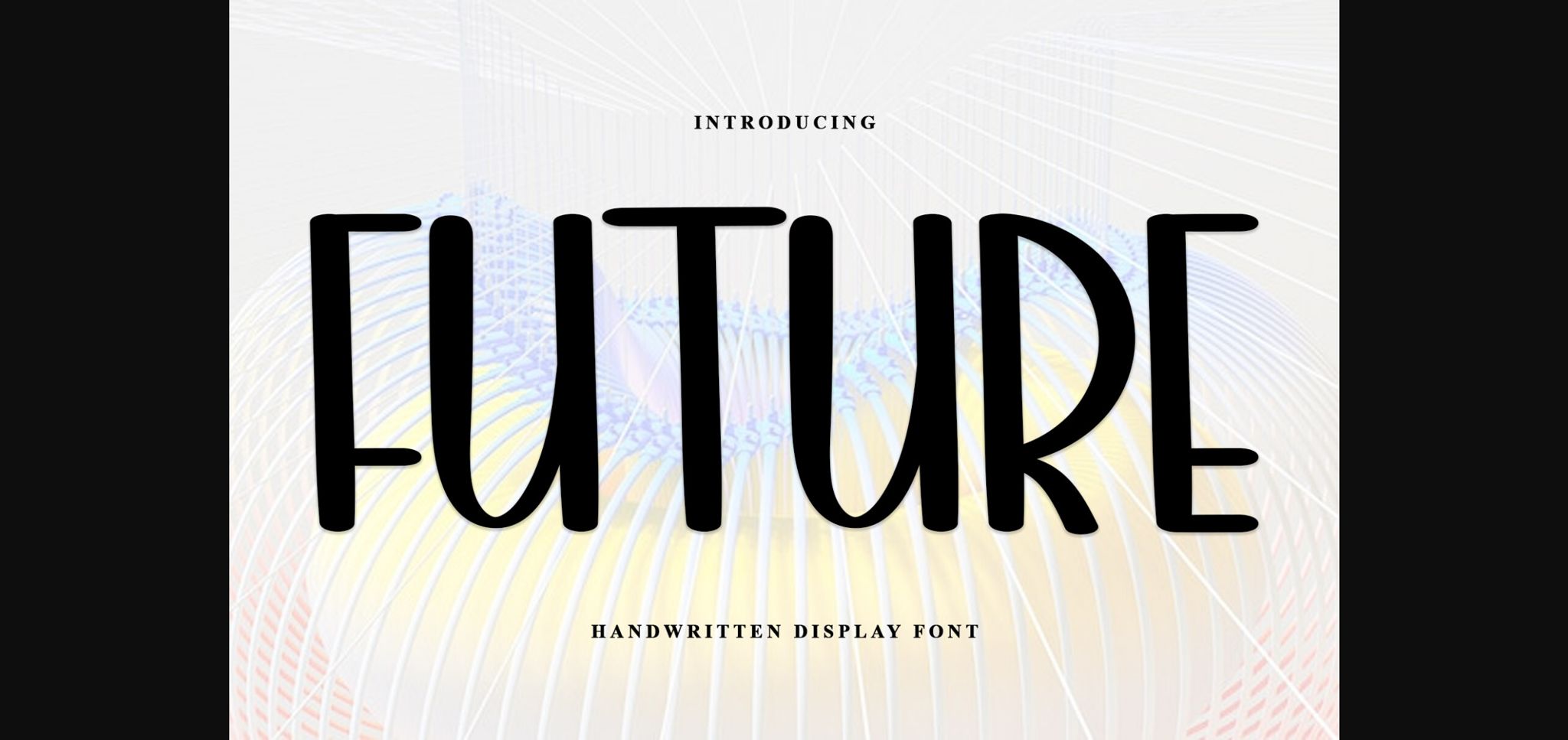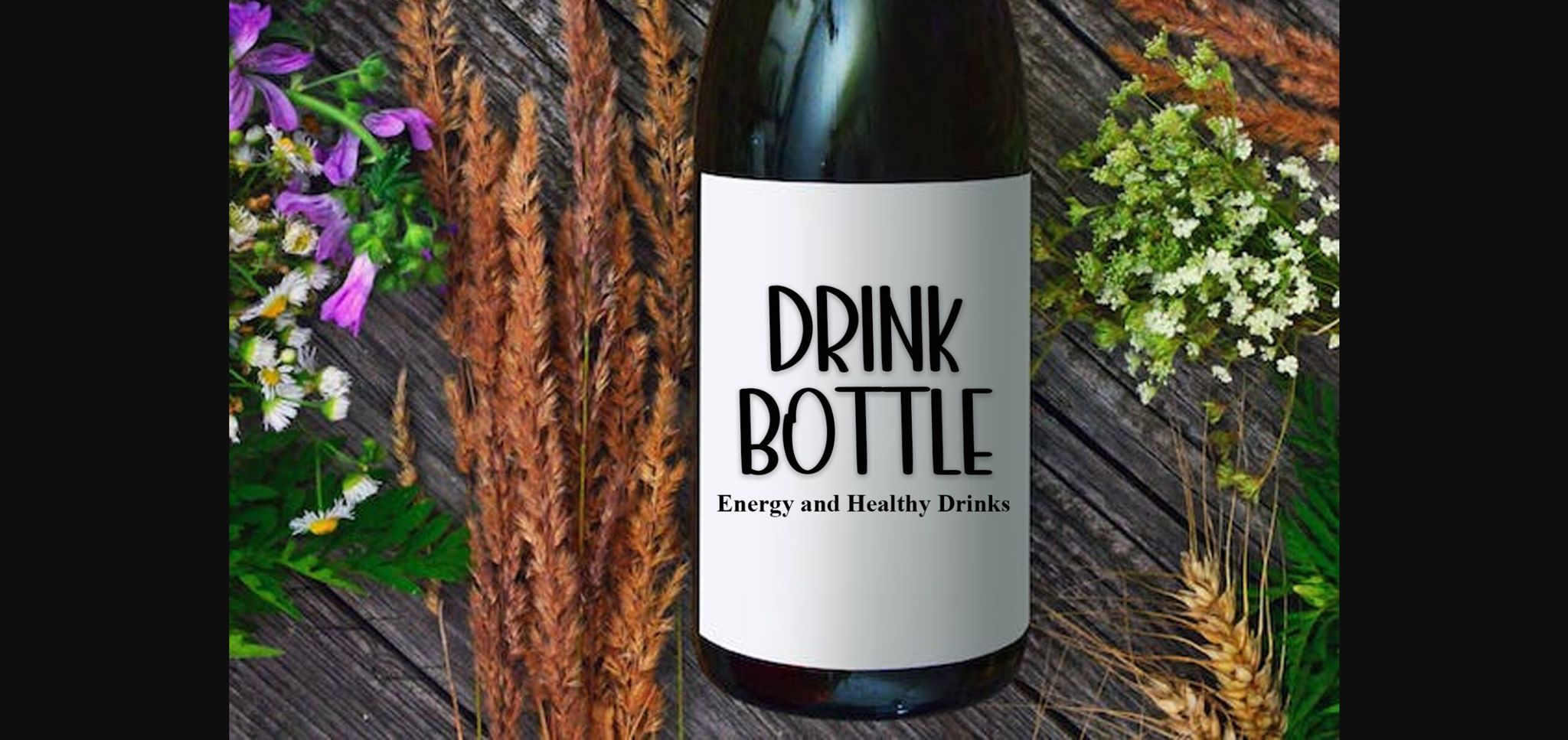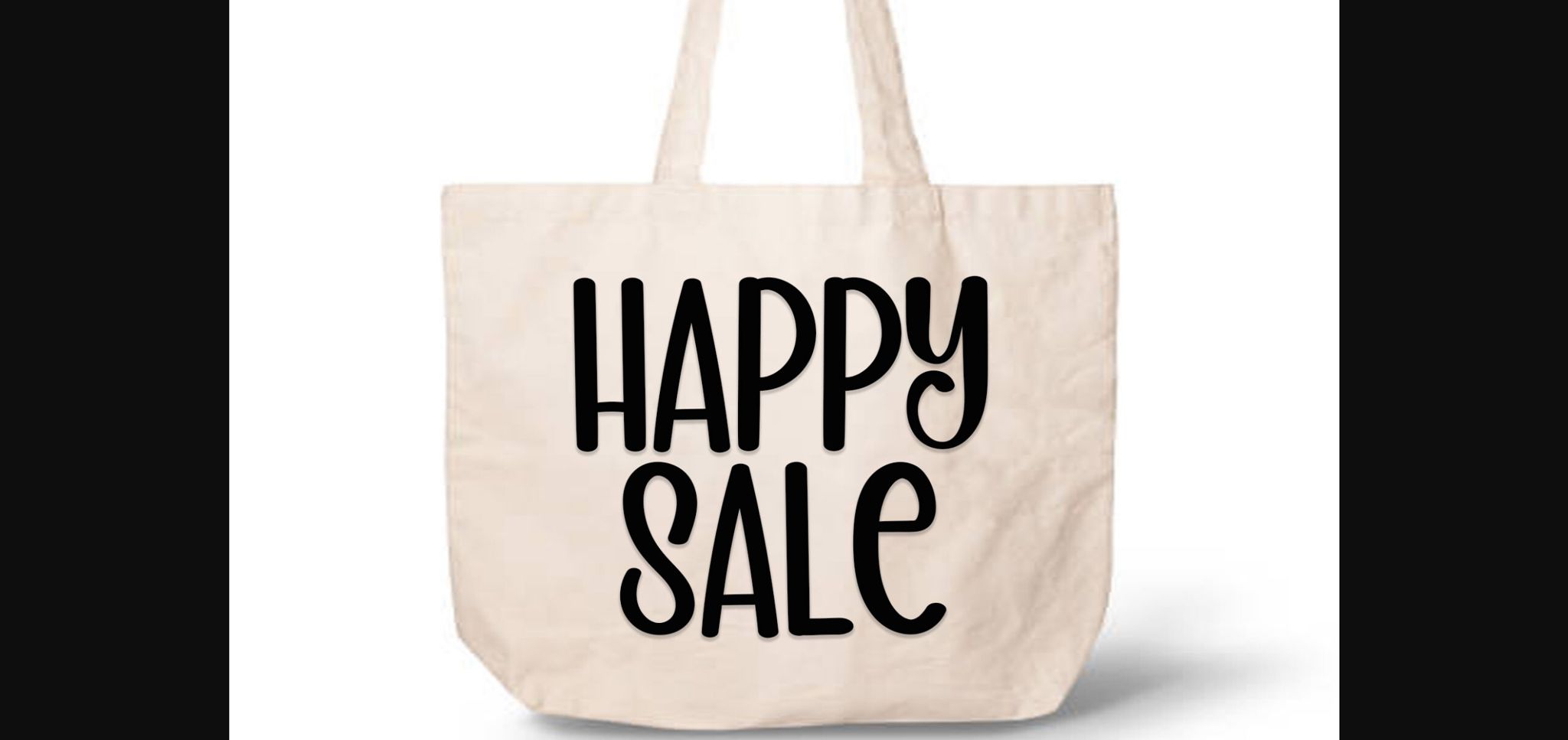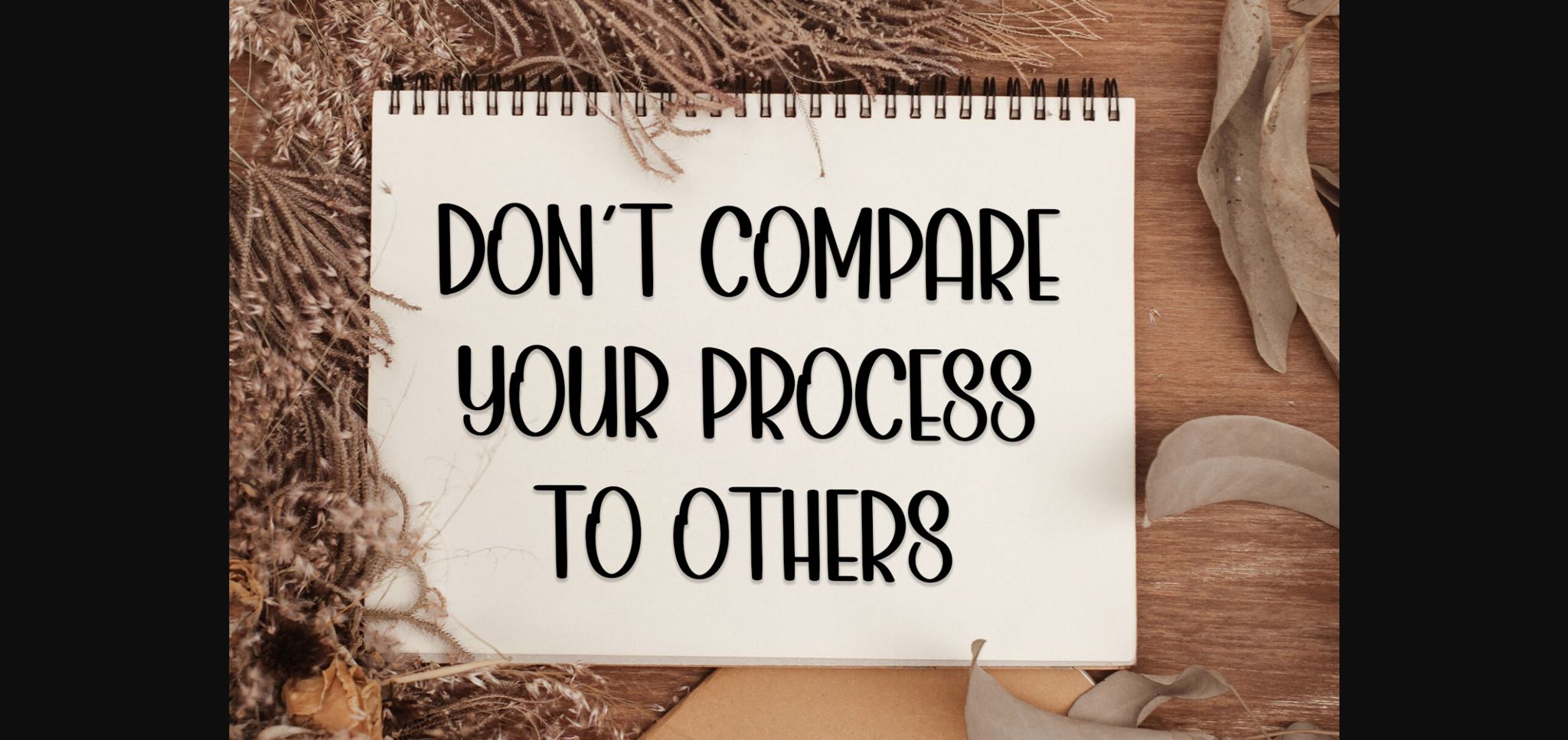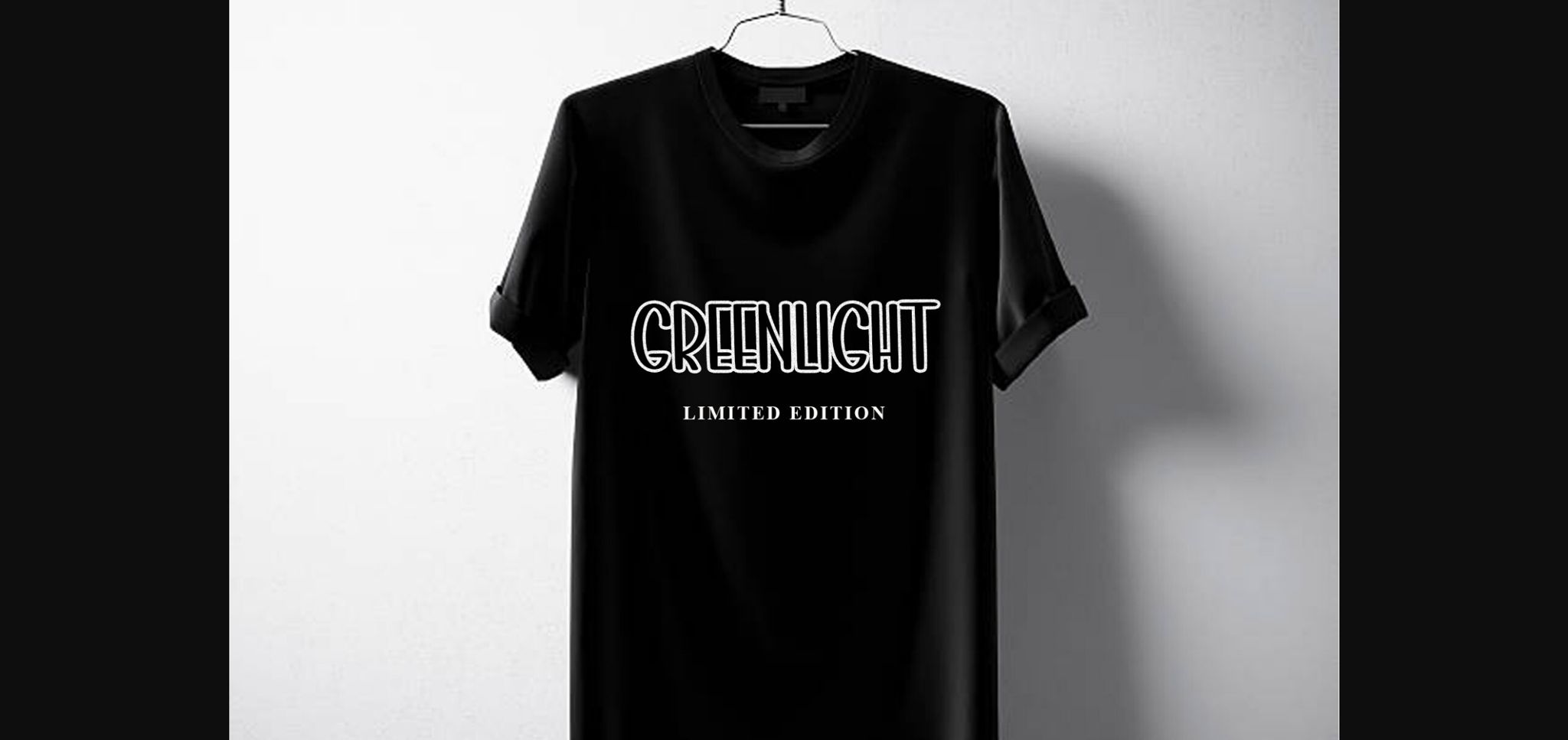
About Future Font
Future is a fun sans-serif font carefully created with a touch of elegance. Whether you’re looking for fonts for Instagram or calligraphy scripts for DIY projects, this font will turn any creative idea into a true piece of art!